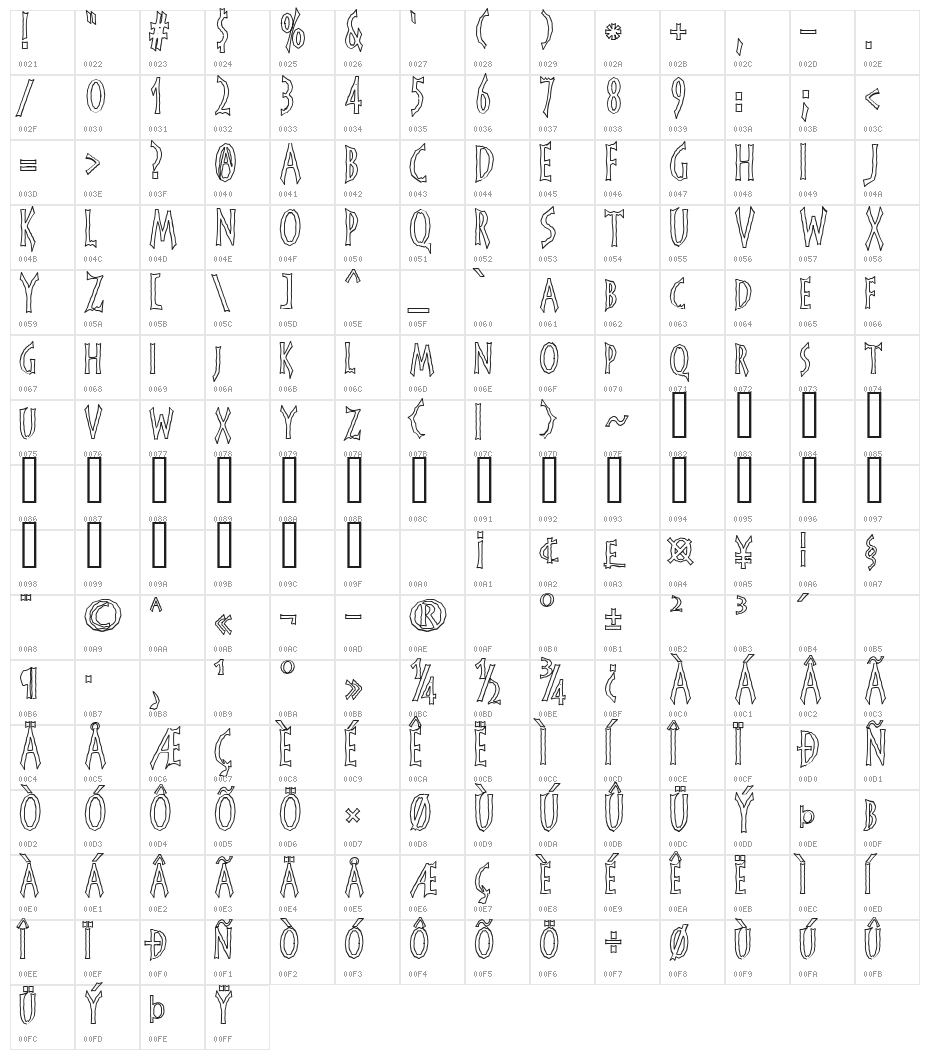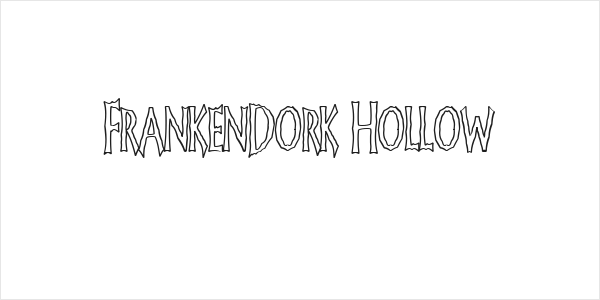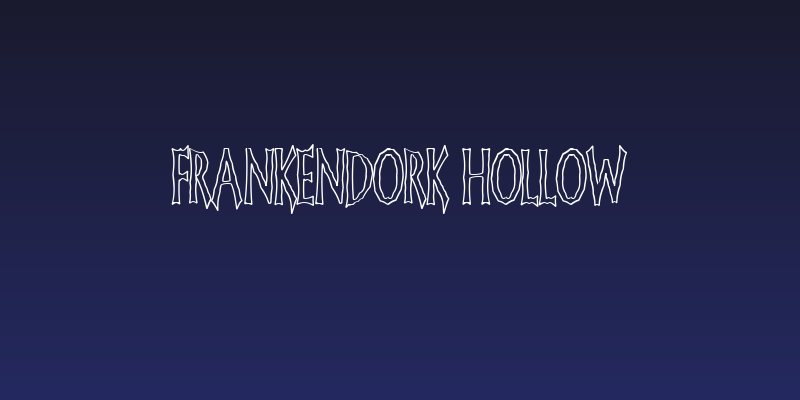
FrankenDork Hollow Font
FrankenDork Hollow Description
This font features a unique and playful design with a hand-drawn, hollow appearance. The letters are outlined with irregular, jagged lines, giving them a quirky and slightly chaotic look. The uppercase and lowercase characters maintain a consistent style, with exaggerated angles and a whimsical flair. The numbers and special characters follow the same design principles, ensuring a cohesive appearance across all glyphs. This font's distinctive style makes it ideal for projects that require a fun and unconventional aesthetic.
| Use Case | Headlines, Posters, Creative Designs |
| Proposed Projects | Ideal for Halloween-themed designs, comic books, children's book titles, or any project needing a playful and unconventional typeface. |